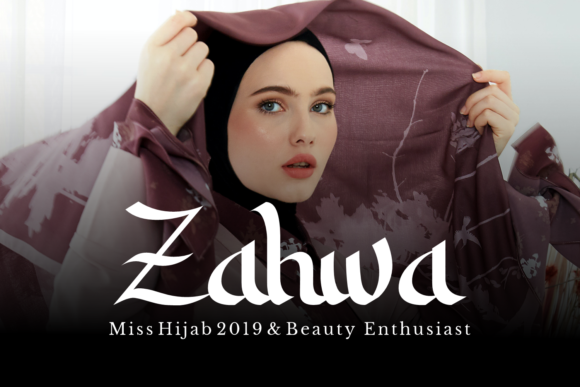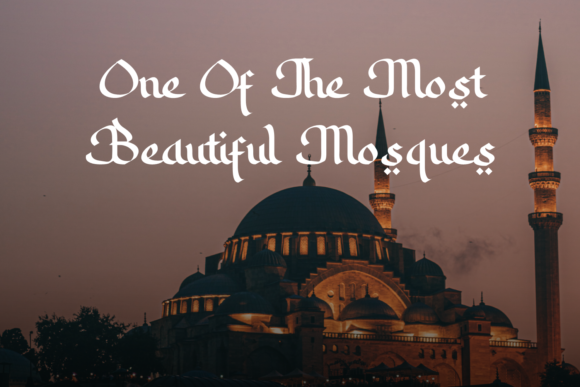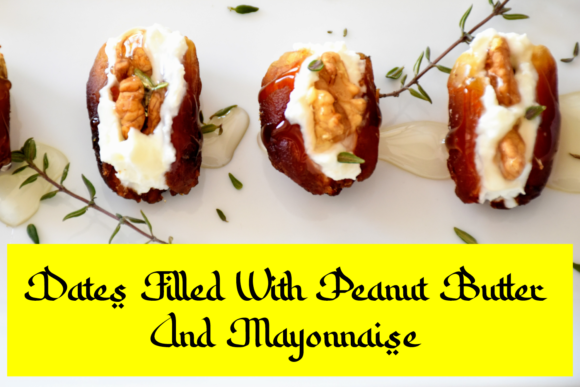
Introduction to Sabana Font
As a designer, have you ever felt the rush of creativity when working on a project that’s close to your heart? Perhaps it’s a Ramadan-themed poster for a local mosque, or a bespoke invitation for a family gathering. Whatever the project may be, the right font can make all the difference. That’s where the Sabana Font comes in – an Arabic-style script that exudes luxury and sophistication, perfect for adding a touch of elegance to any design project.
With its beautiful, intricate strokes and high-quality design, the Sabana Font is a valuable resource for designers looking to elevate their creative projects. Whether you’re working on a commercial project or a personal one, this font is sure to impress. And the best part? It’s available for free download, making it a must-have in every designer’s toolkit.
Whether you’re looking for a font with a transparent background or one that can be used on its own, the Sabana Font is a versatile design resource that’s sure to meet your needs. So why settle for an ordinary font when you can have a luxury one? Download the Sabana Font today and take your designs to the next level!
Sabana Font Key Features
- High-quality design resource with a unique, modern aesthetic, perfect for creative projects.
- Includes a range of weights and styles, allowing for flexibility in design and creative projects.
- Perfect for use in graphic design, digital art, and other creative projects where a modern, unique font is desired.
Honest Review: Sabana Font
I recently had the chance to experiment with the Sabana Font for a creative project and I must say, it was a great experience. This free download has been a valuable addition to my design resources.
One of the things that works well with the Sabana Font is its unique design aesthetic. The font’s elegant and modern feel makes it perfect for a wide range of applications, from branding to typography-based art. ✨
The font also features a transparent background, which allows for seamless integration with various backgrounds and designs. This level of flexibility is essential for any designer working on a creative project.
Some potential limitations to consider are:
- Limited character set: The Sabana Font may not have as many characters as some other fonts, which can be a challenge for designers who need to typeset complex text.
- Not ideal for small text: The font’s design can make it difficult to read at small sizes, so it’s best to use it for headings or titles.
- May require tweaking: Depending on the design context, the font may require some adjustments to achieve the desired look.
Overall, I’m impressed with the Sabana Font and would recommend it to designers looking for a high-quality, unique font for their creative projects. ⚠️ While it may have some limitations, the benefits far outweigh the drawbacks.
Tips for Getting the Most Out of Sabana Font
For a creative project, use the Sabana Font in conjunction with a free download image or vector to create a unique design.
Experiment with different font sizes, colors, and styles to achieve the desired effect.
Take advantage of the font’s transparent background feature to create a seamless design.
Sabana Font is ideal for creative projects, such as:
Logo design
Text overlays
Infographics
Presentations